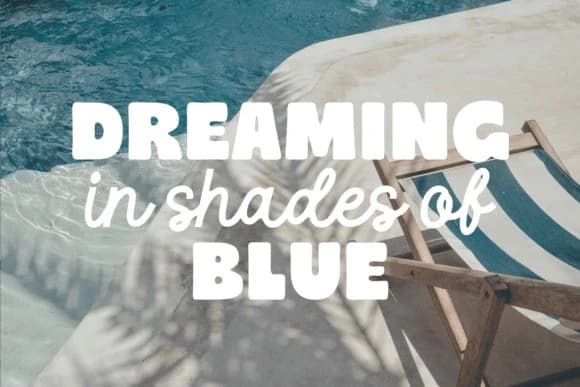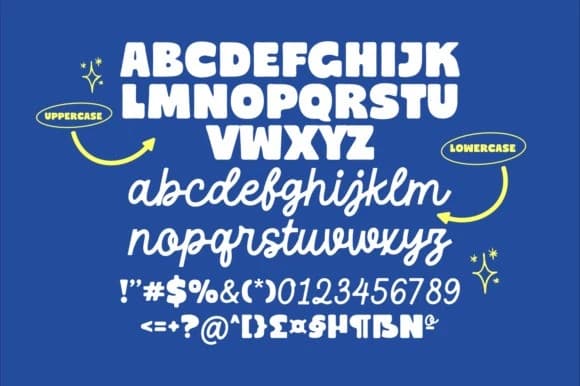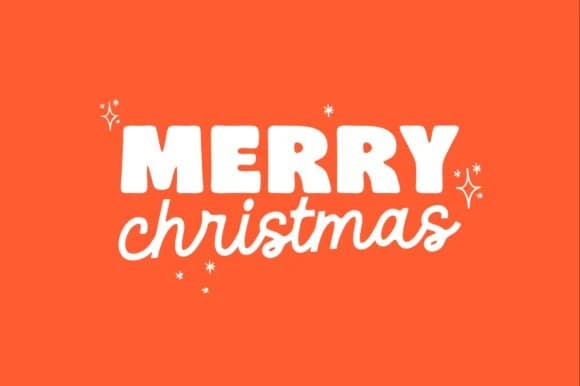
Coastal Delight Font
Coastal Delight Font, a vibrant typeface duo that perfectly balances bold, chunky letterforms with a fluid, free-spirited script. Designed for creators who crave a retro aesthetic with a modern, approachable twist, Coastal Delight is the ultimate toolkit for making a statement.